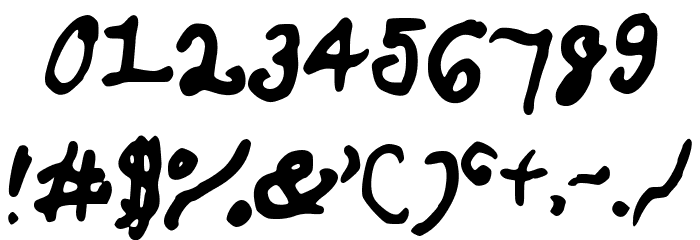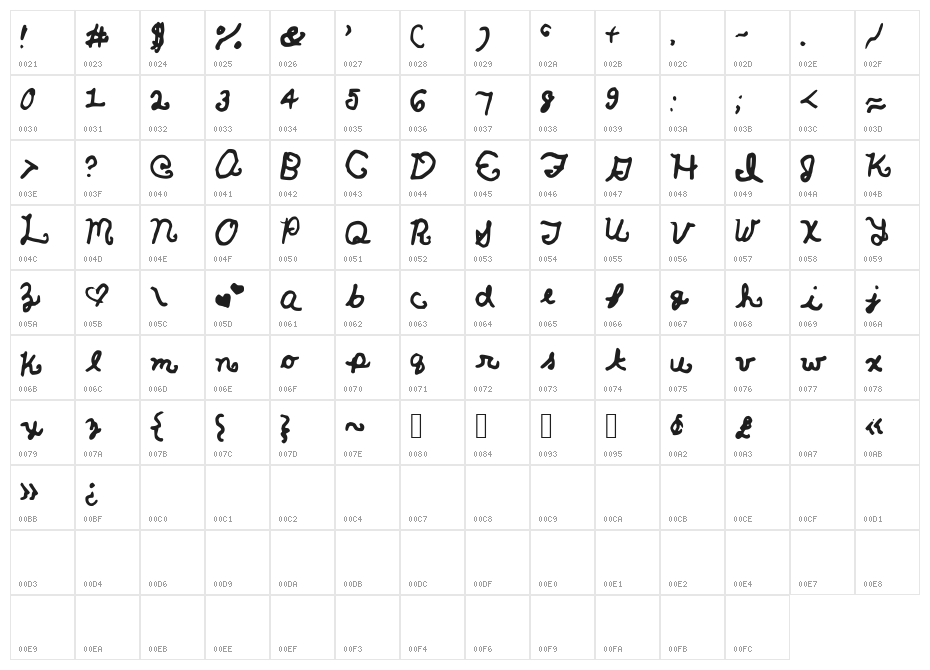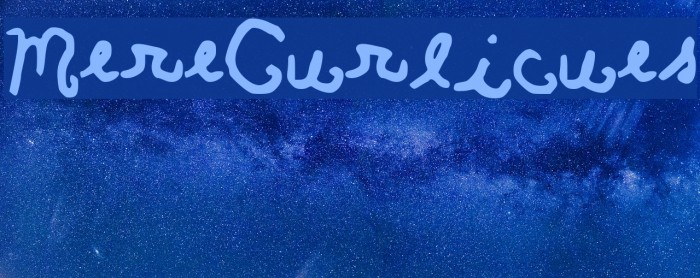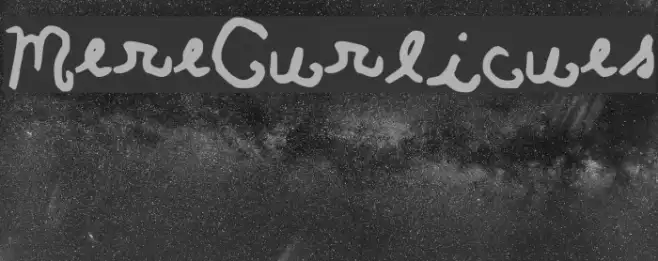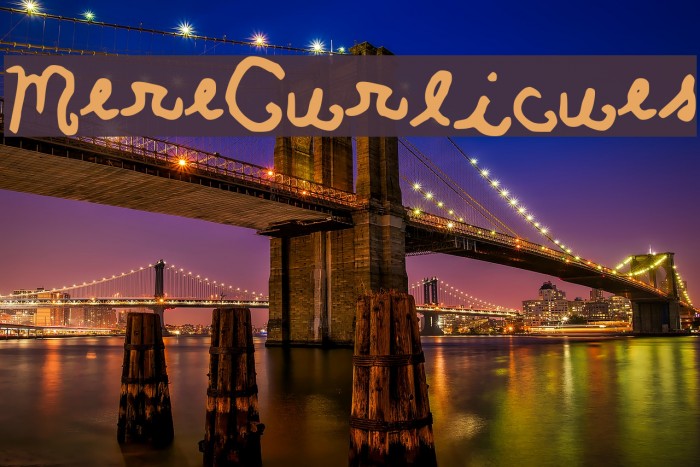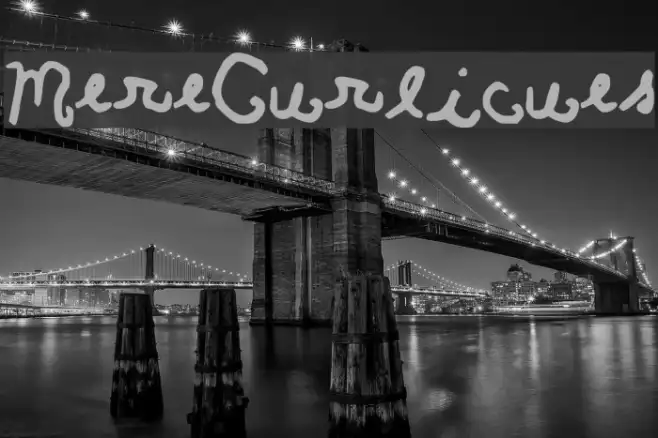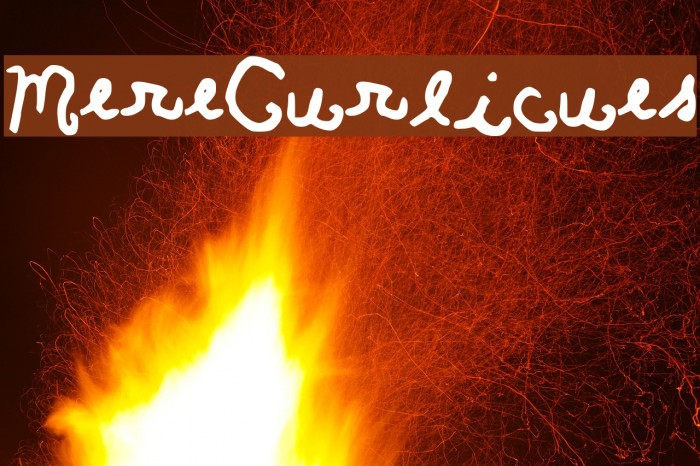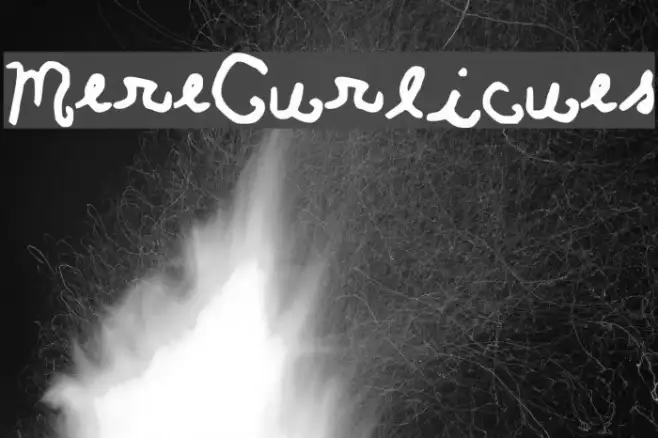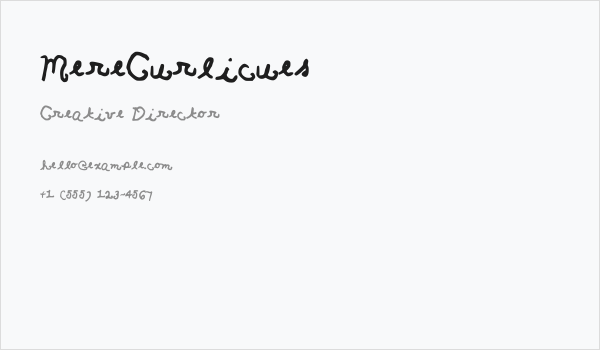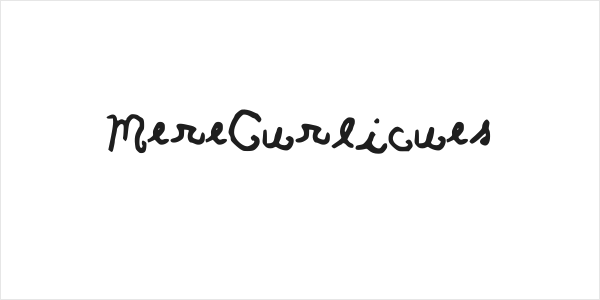
MereCurlicues Font
MereCurlicues Description
This font features a playful and whimsical script style, characterized by its curvy and flowing letterforms. The uppercase and lowercase letters exhibit a consistent, hand-drawn appearance, with each character displaying unique loops and curls that add to its charm. The numbers and special characters maintain the same lively style, ensuring a cohesive look across all text. The strokes are bold and rounded, giving the font a friendly and approachable feel. This font is perfect for projects that require a touch of personality and creativity, such as invitations, greeting cards, or playful branding materials.
| Use Case | Logos, Headlines, Creative projects |
| Proposed Projects | Ideal for invitations, greeting cards, playful branding, and creative projects. |